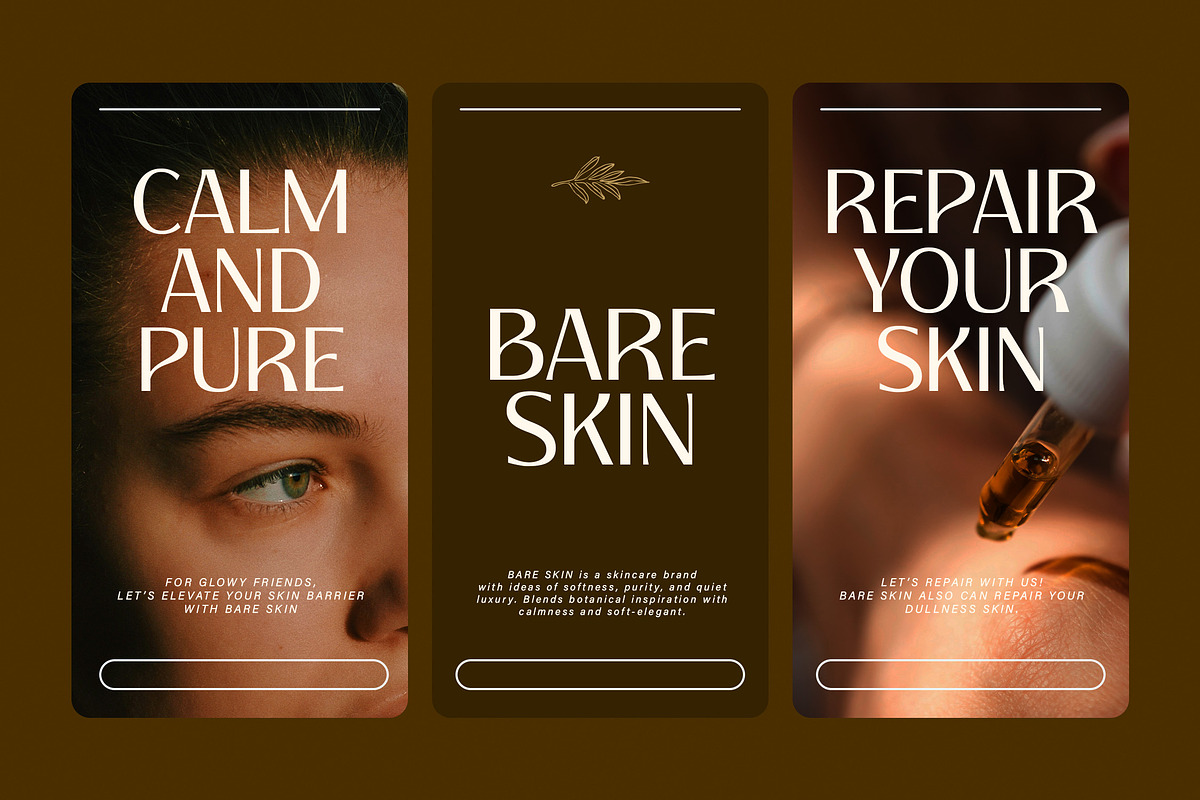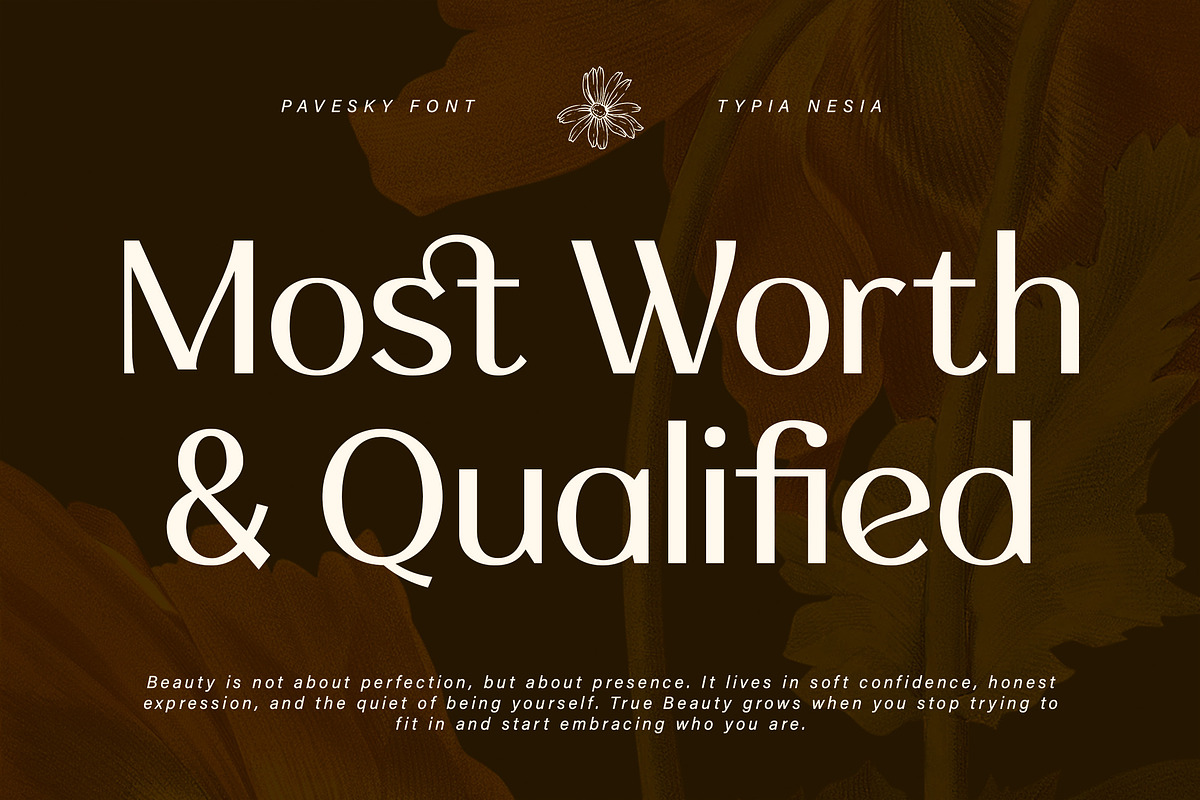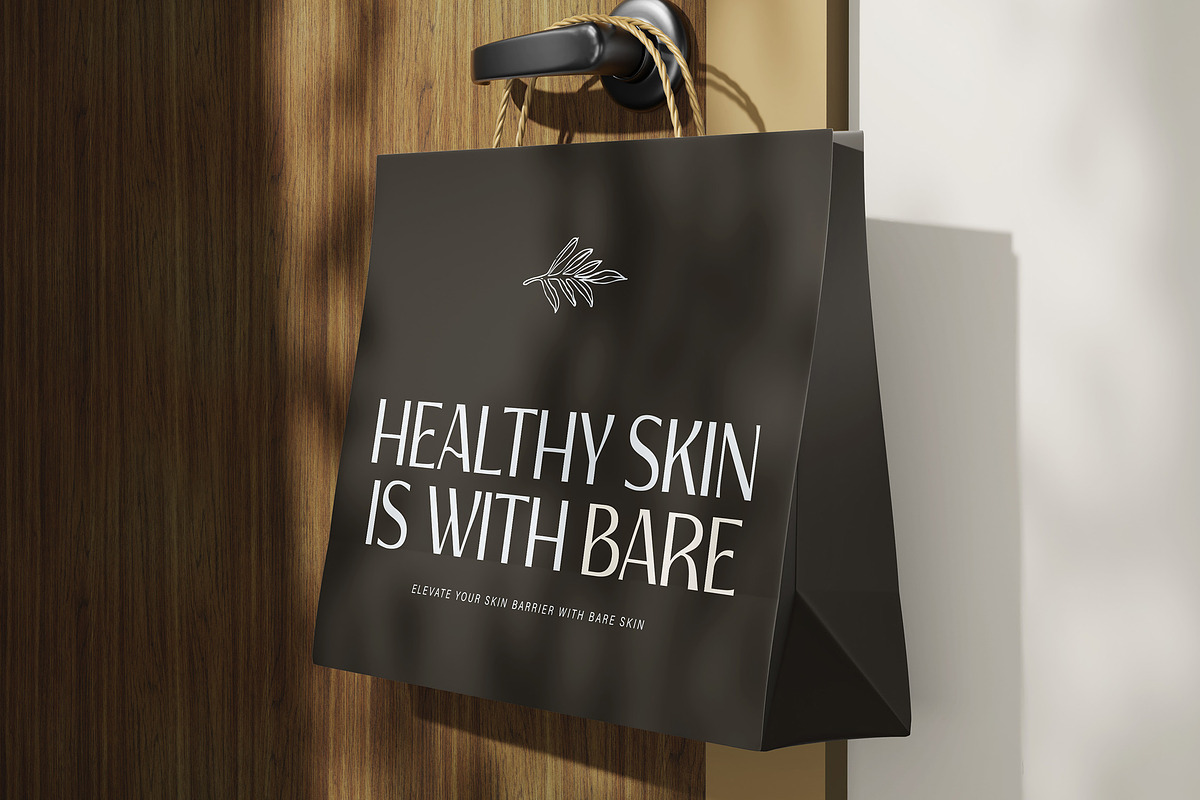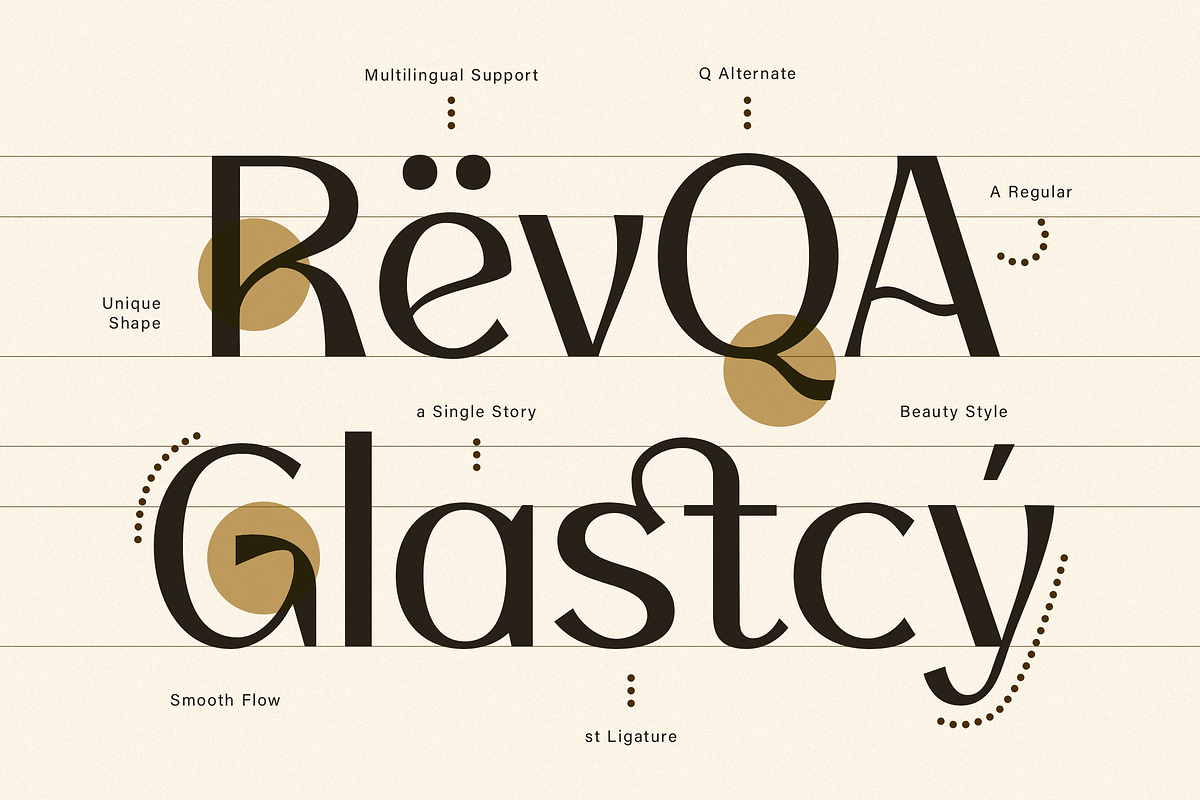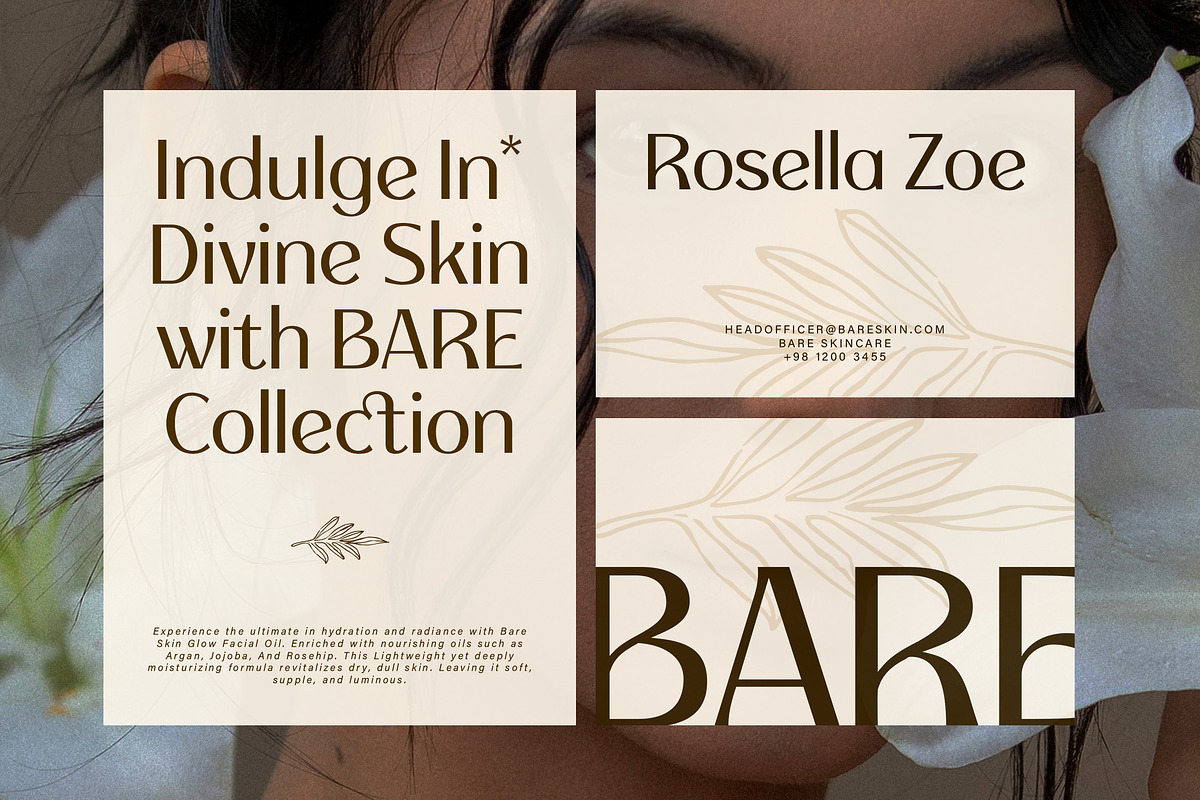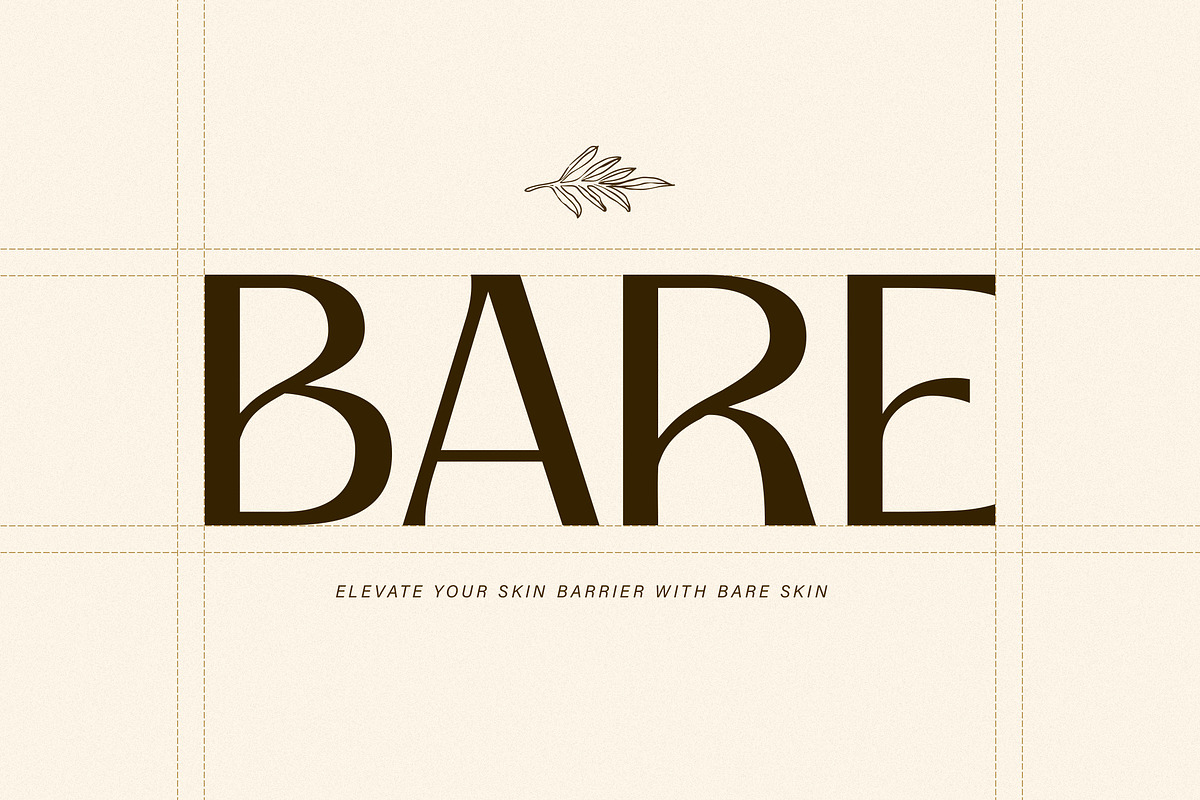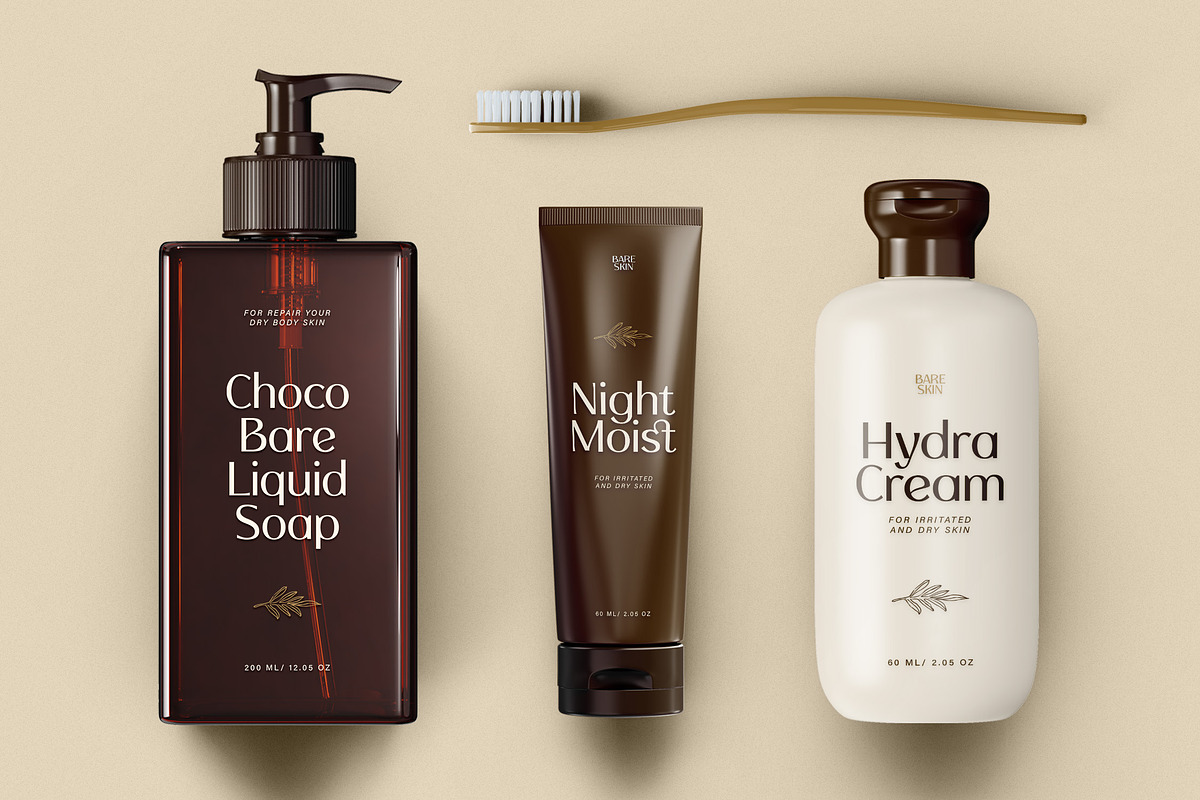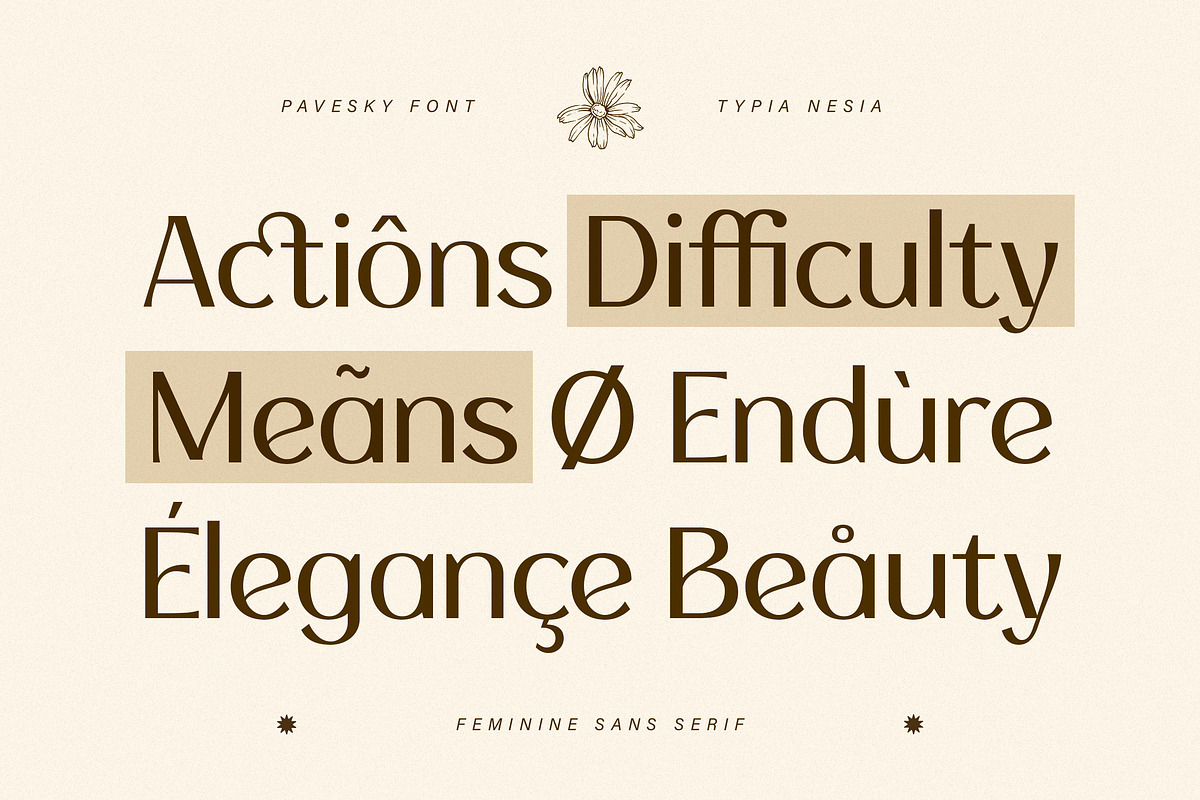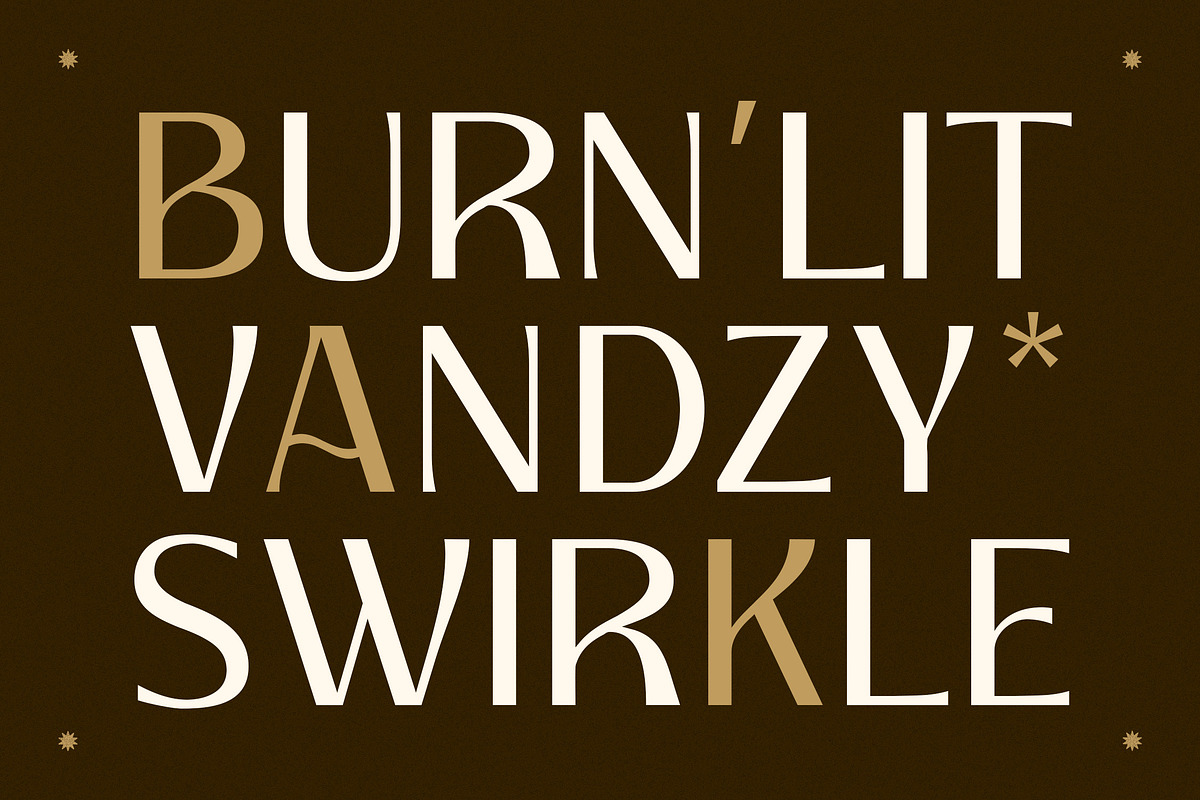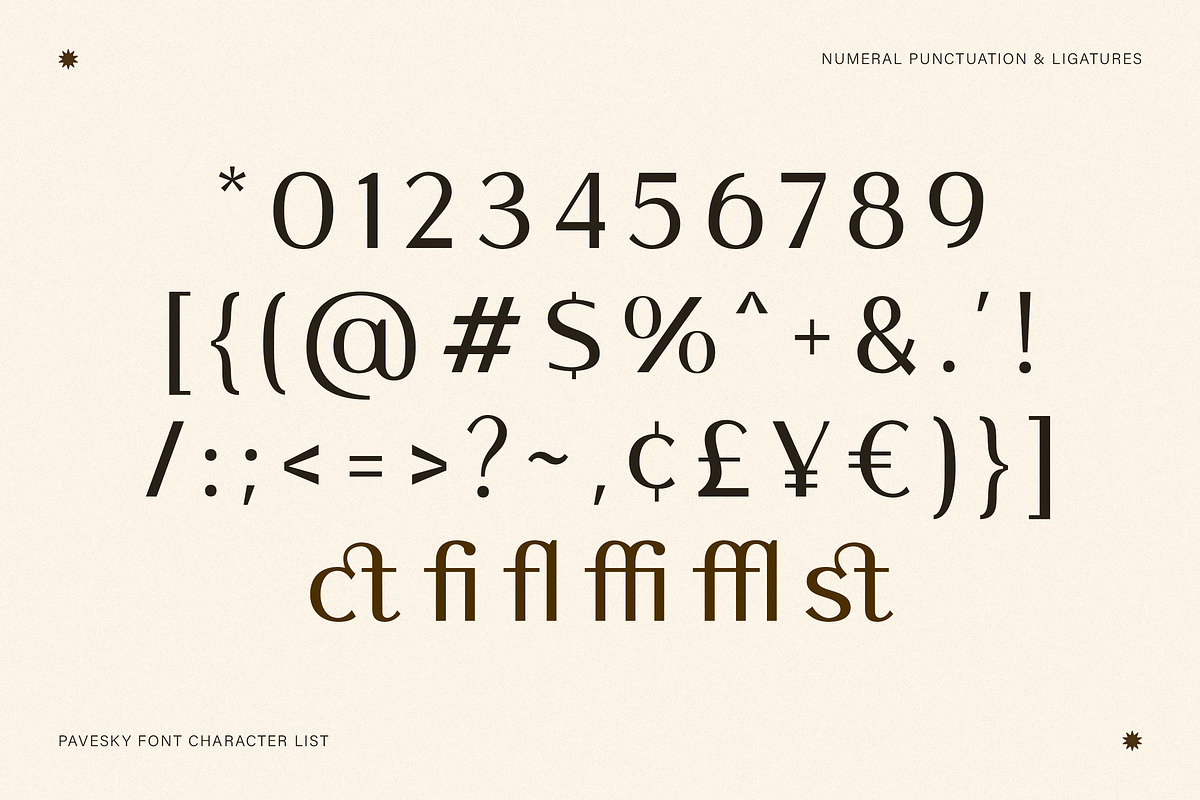
Pavesky – Luxury Elegant Beauty Sans
Pavesky – Luxury Elegant Beauty Sans Serif
Pavesky is a modern luxury elegant sans serif font created to express beauty, sophistication, and timeless style. Designed with clean lines, balanced proportions, and graceful curves, this typeface delivers a minimalist, classy, and feminine aesthetic that feels premium and refined. It is ideal for logo design, wedding invitations, cosmetic branding, fashion labels, skincare packaging, posters, and aesthetic visual projects. The elegant sans serif style ensures excellent readability while maintaining a polished and stylish appearance across both print and digital media.
Create timeless beauty with Pavesky